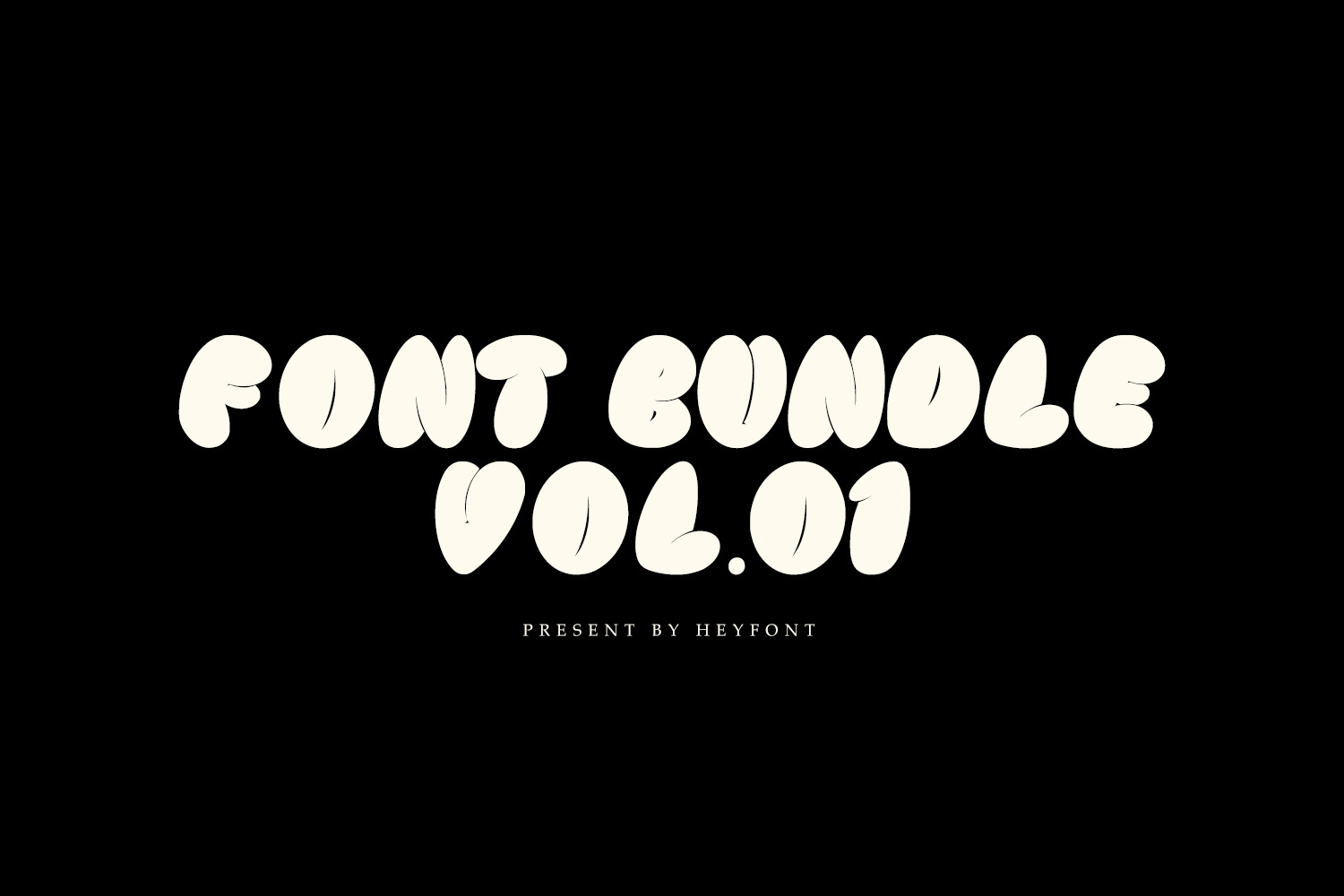
Font Bundle Vol.01
Hello everyone, this time I am happy to present to you the font bundle vol.01 which contains 16 fonts with a total of 36 OTF files in it.